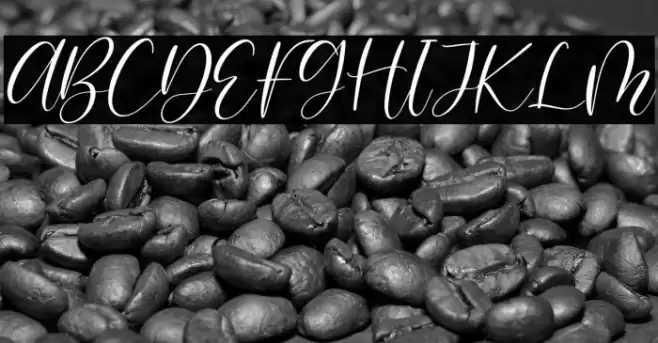
Blandita Italic Font
Blandita Italic Description
This font exudes elegance and fluidity with its cursive, handwritten style. The letters are interconnected, creating a seamless flow that mimics natural handwriting. Each character is crafted with a graceful curve, giving it a sophisticated and artistic appearance. The strokes vary in thickness, adding a dynamic contrast that enhances readability while maintaining an artistic flair. The font's overall aesthetic is both modern and classic, making it versatile for various design applications. Its italic nature adds a touch of formality and refinement, suitable for projects that require a personal and elegant touch.
A cursive, handwritten font with elegant, flowing strokes and dynamic contrast from Uncategorized fonts.
- Font: Blandita Italic
- Proposed Projects: Ideal for wedding invitations, greeting cards, personal branding, and elegant logo designs.
- Overall Style: Elegant, Artistic
- Use Case: Logos, Invitations, Personal Branding